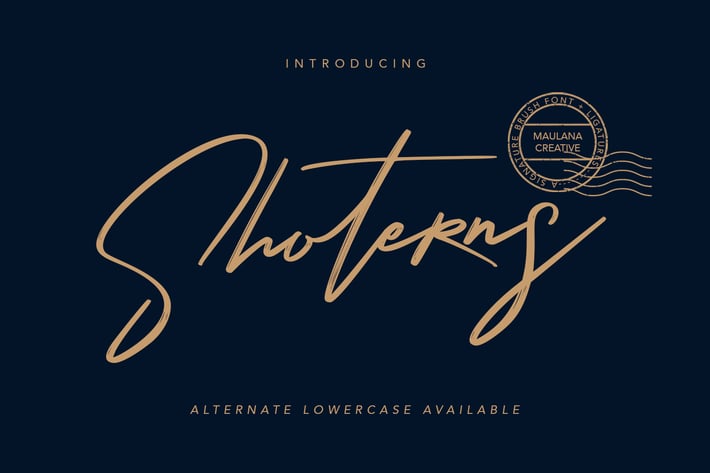
Shoterns Signature Brush Font
Give your designs an authentic handcrafted feel. Shoterns Signature Brush Font is perfectly suited to logo, stationery, branding, typography quotes, magazine or book cover, website header, clothing, branding, packaging design, restaurant and more.